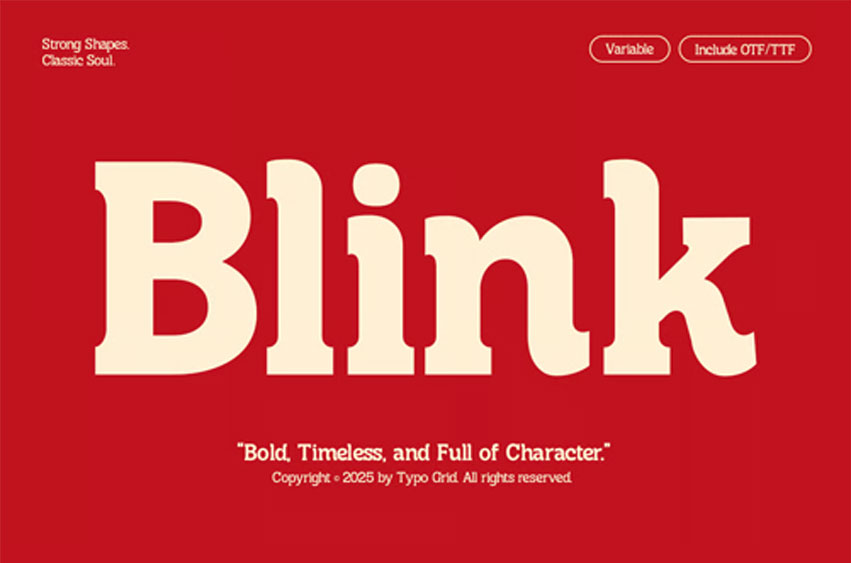
Blink Font is a bold and elegant slab serif font family designed to deliver strong shapes, timeless appeal, and distinctive character. Built with robust proportions and smooth stroke contrast, Blink blends classic serif strength with modern versatility—making it suitable for a wide range of creative applications.
The letterforms are confident yet refined, offering a solid typographic presence without feeling heavy or rigid. Its pronounced slab serifs provide structure and authority, while softened curves add warmth and balance—resulting in a typeface that feels bold, approachable, and visually engaging.
Design & Performance
Blink is designed to perform beautifully across display-focused layouts while remaining clear and consistent in larger text sizes. It maintains strong visual impact in headlines and titles, while its balanced construction ensures readability across both print and digital platforms.
Bold without being overpowering, Blink brings clarity, character, and classic confidence to your typography making it a reliable choice for designers who want their work to feel strong, expressive, and memorable.